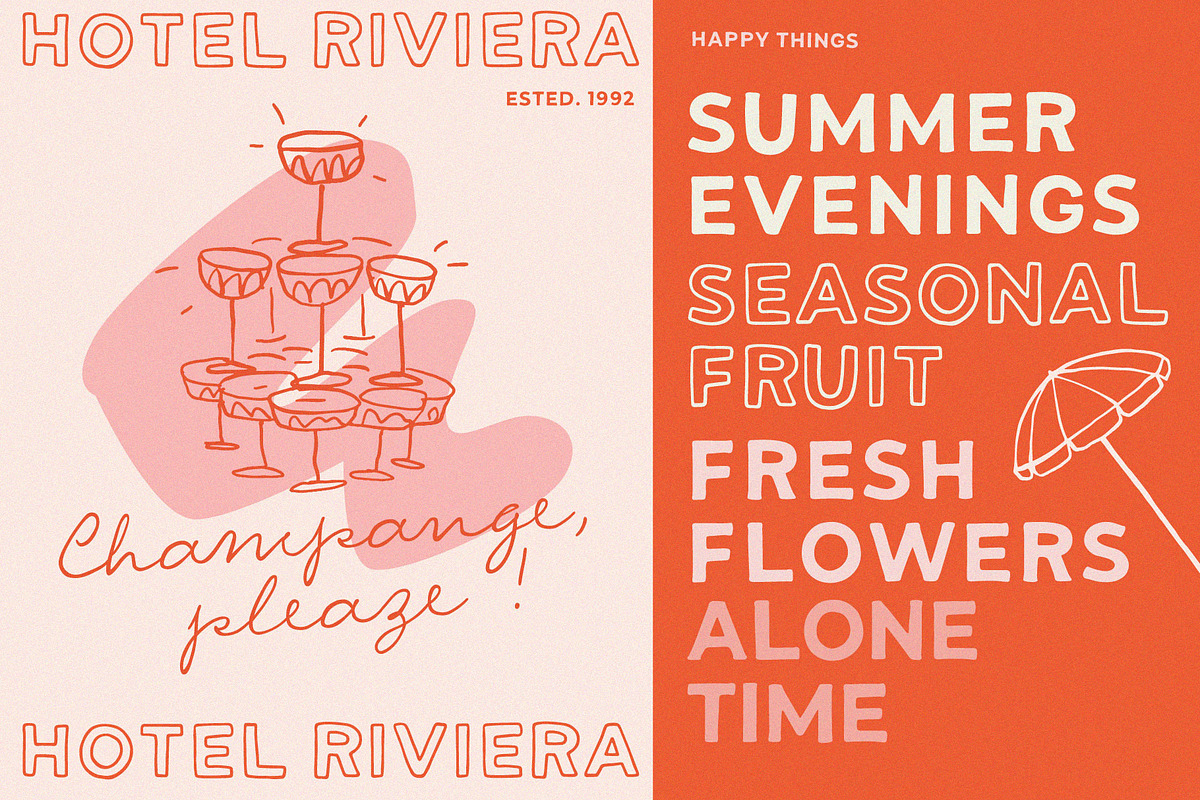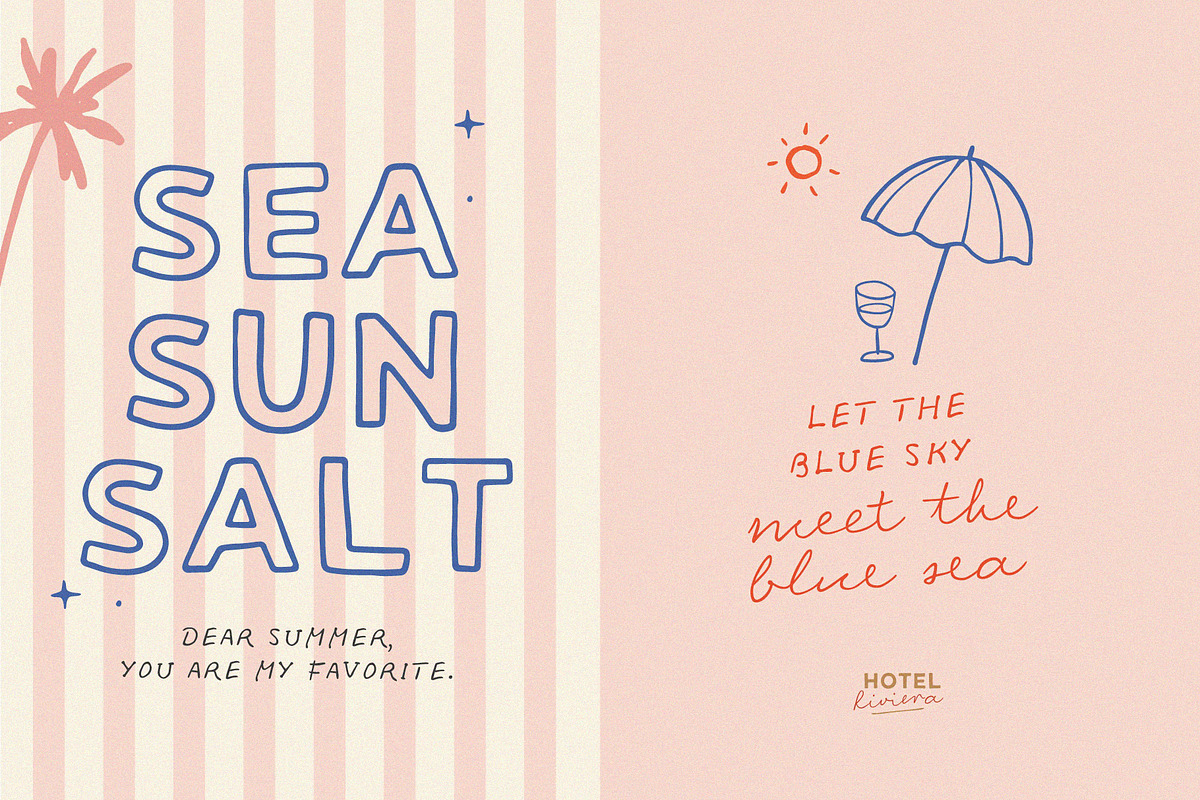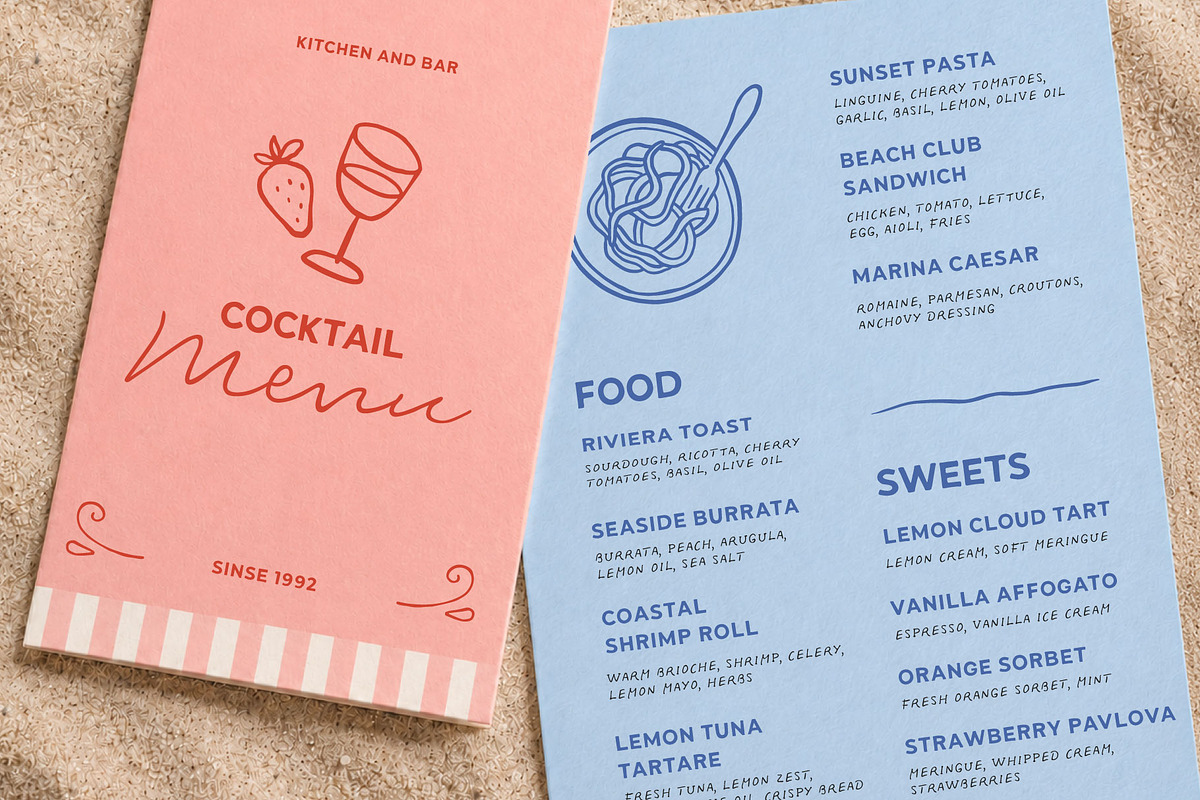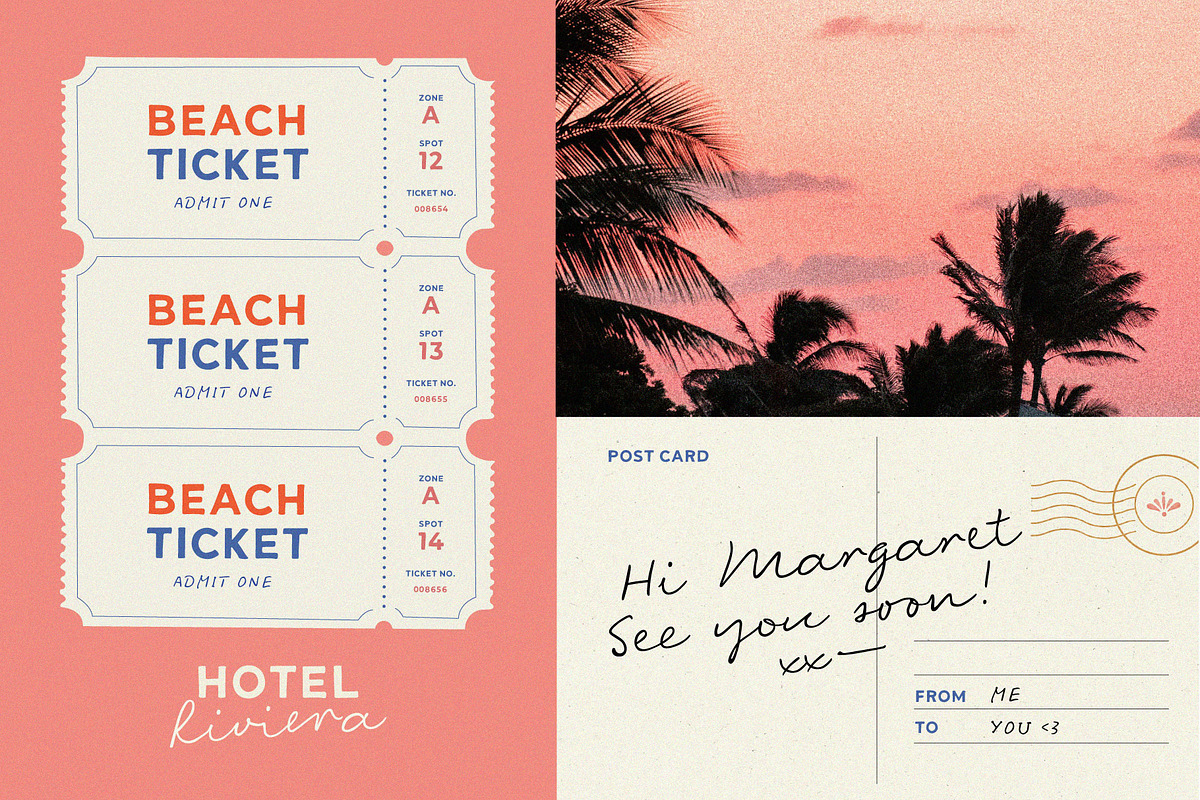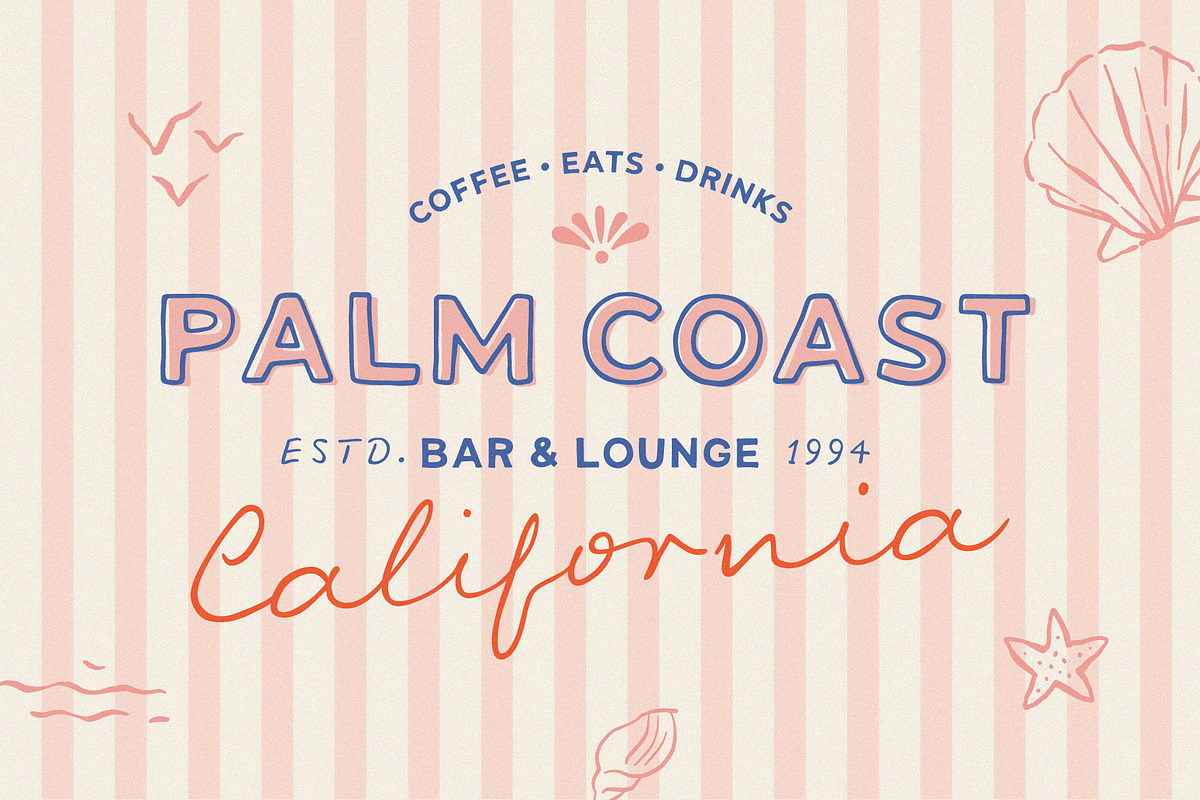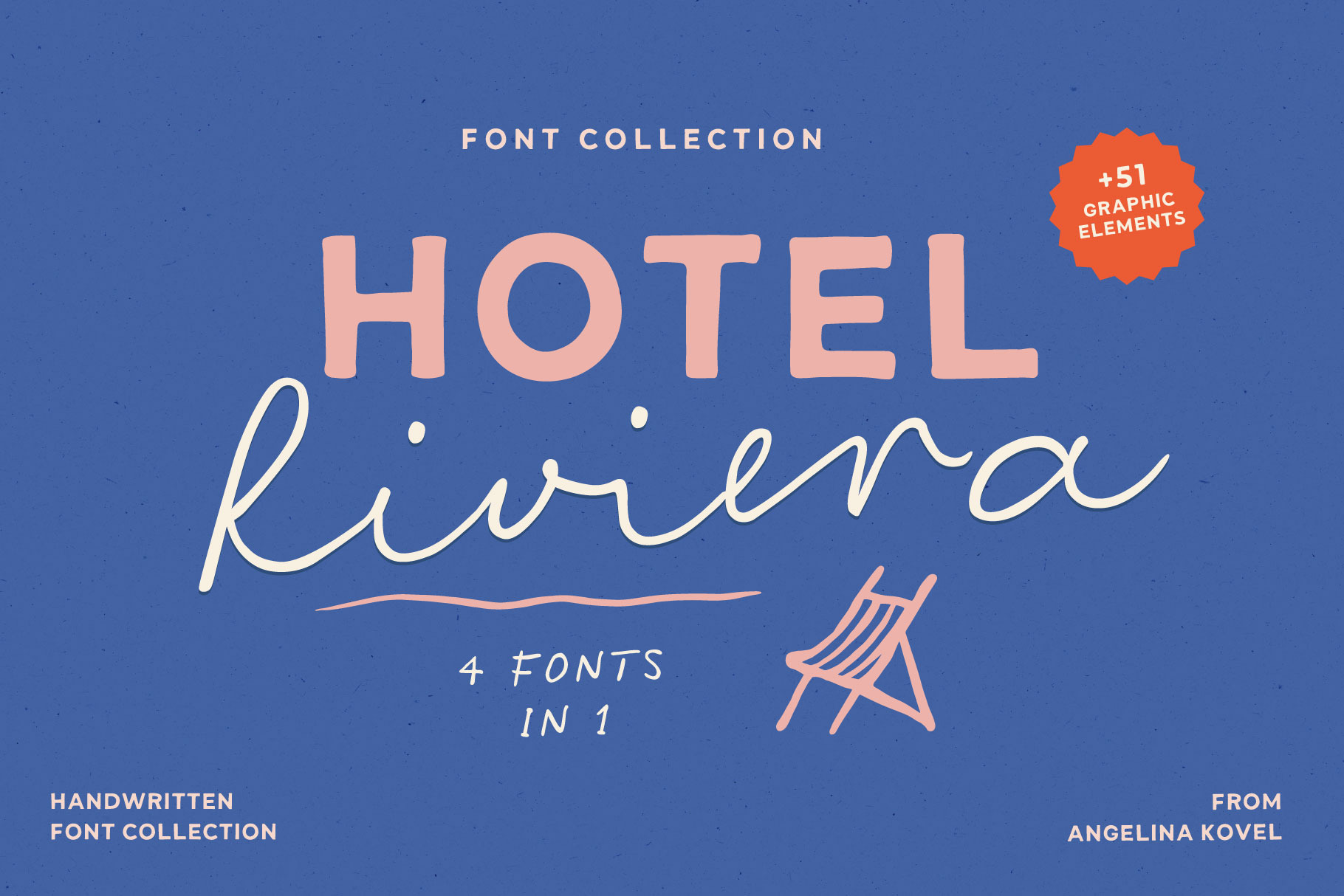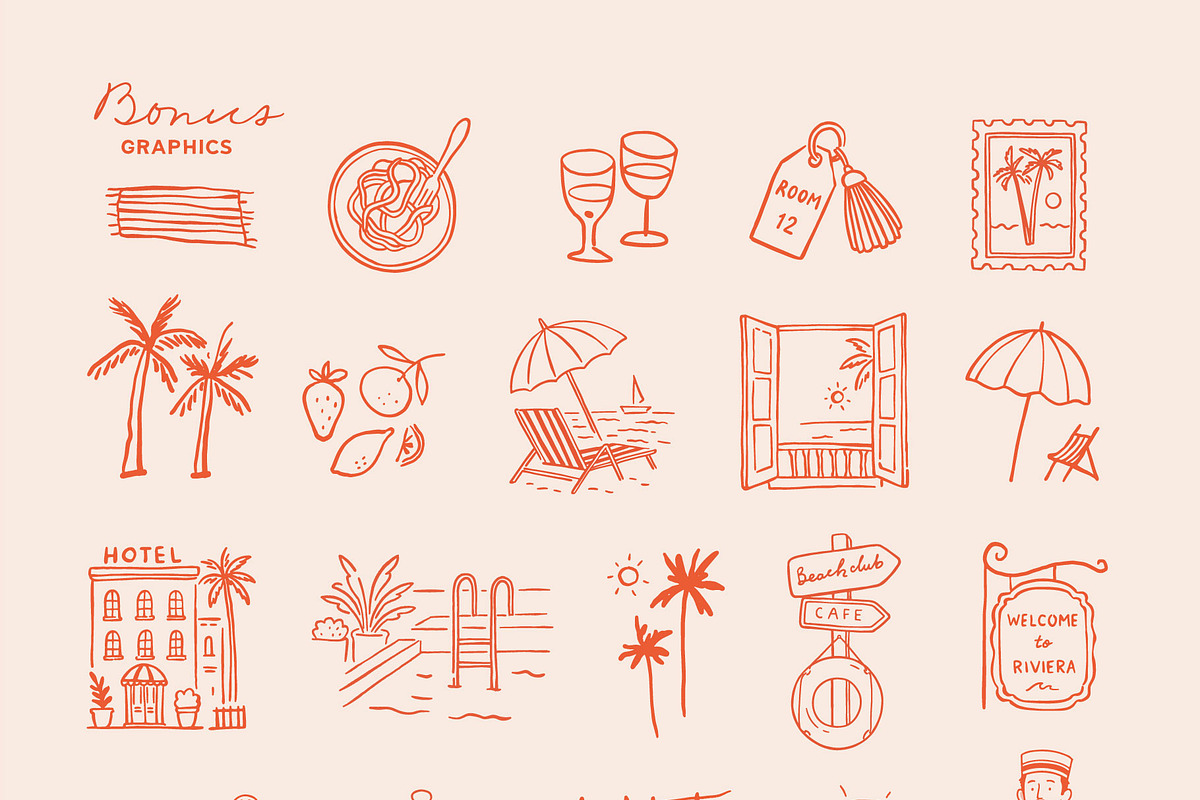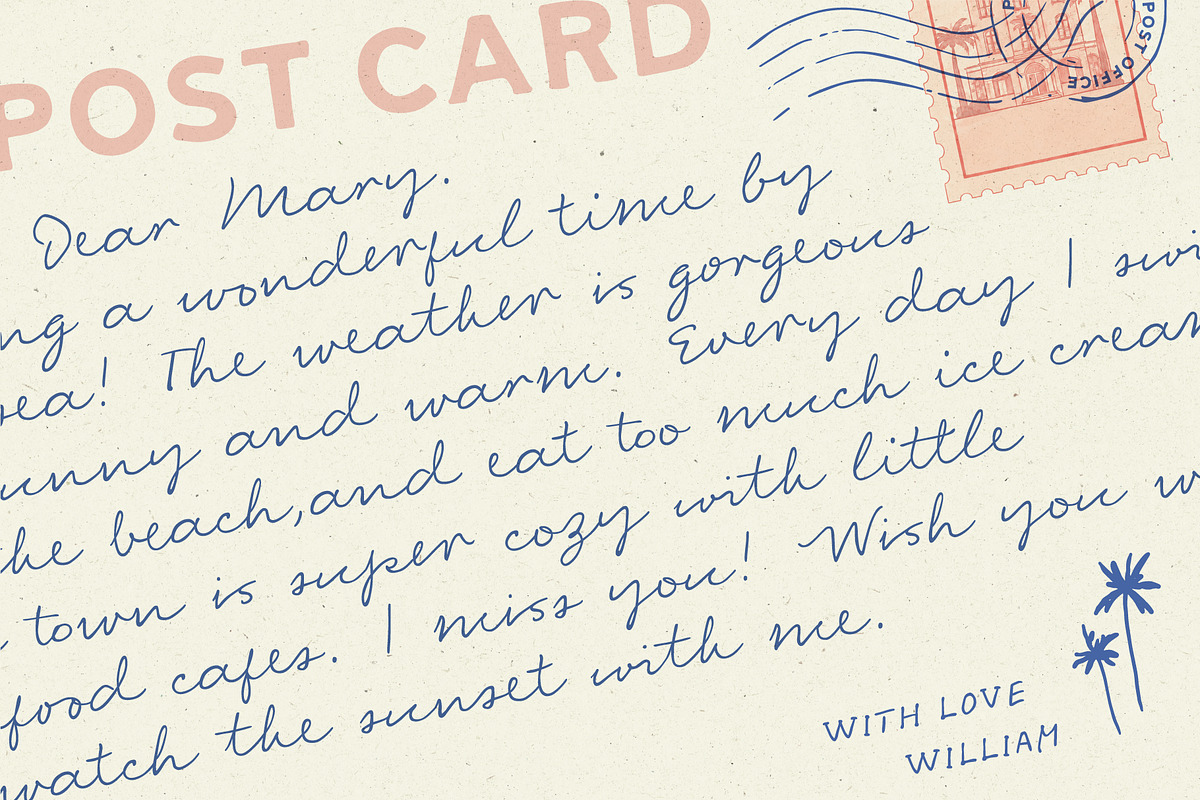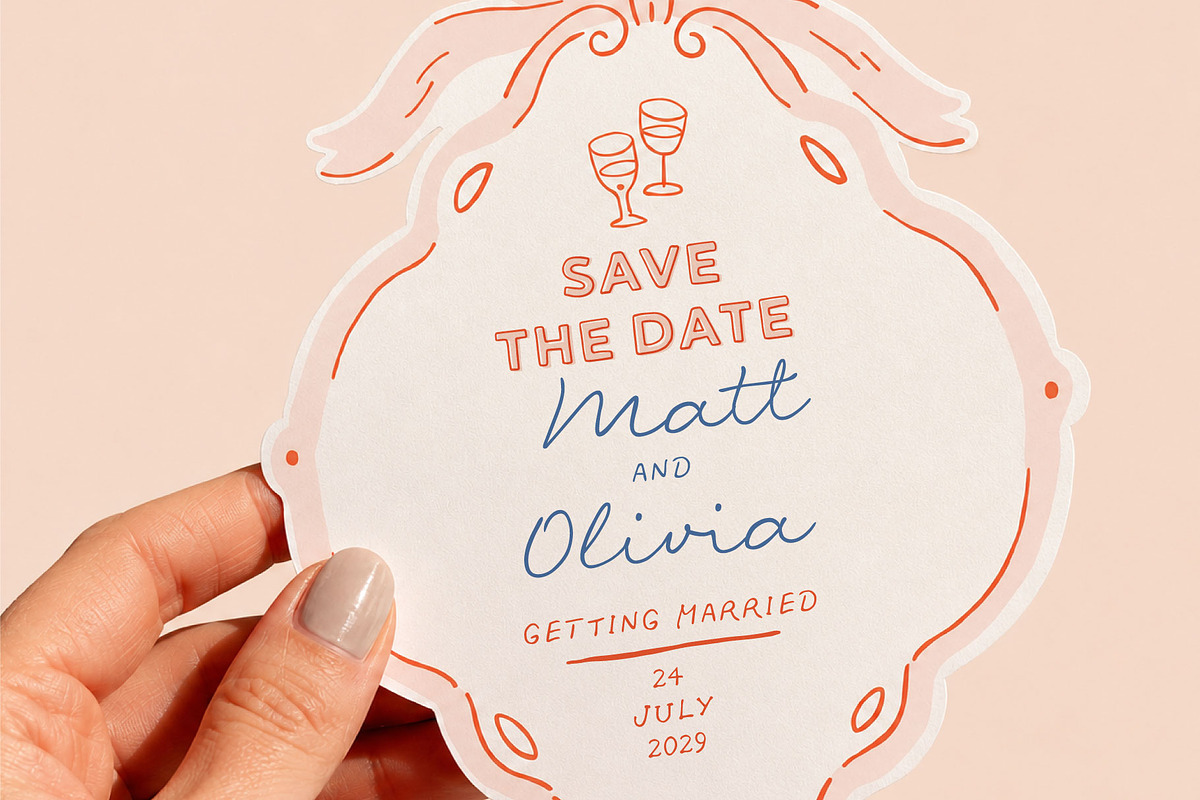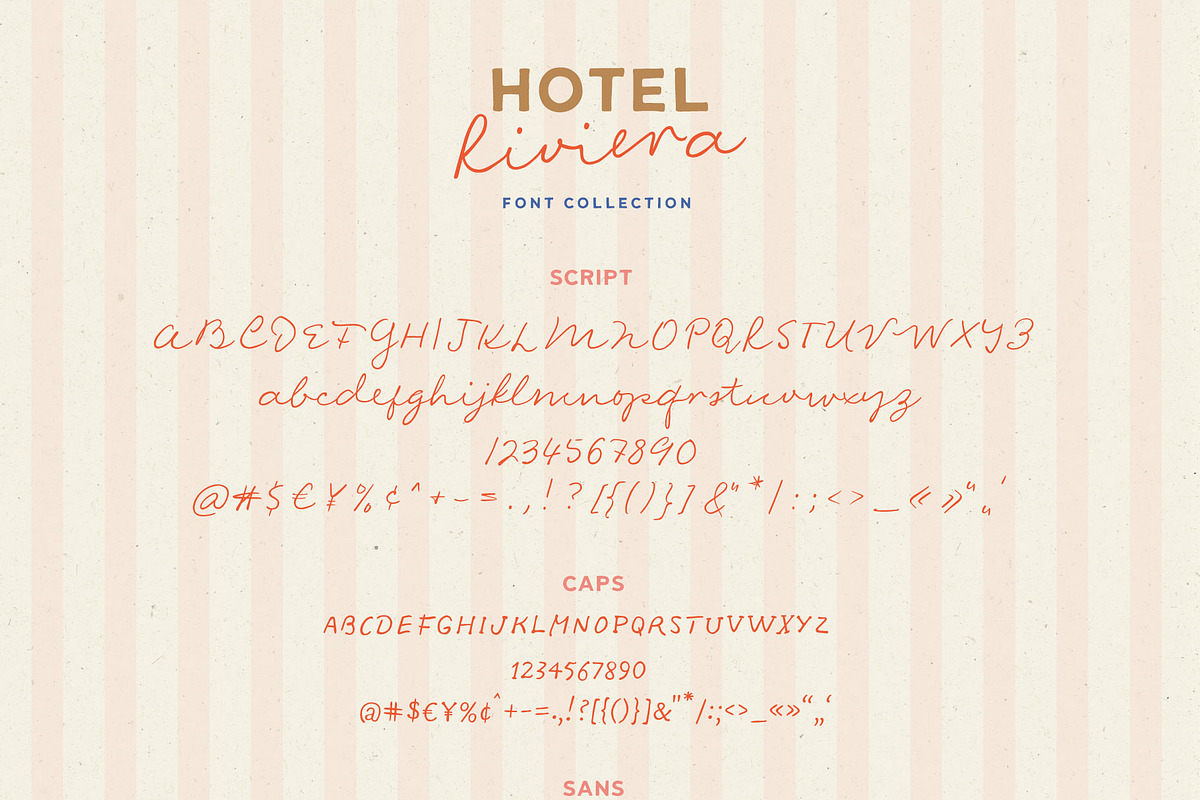
Hotel Riviera | Font collection
Hotel Riviera will be perfect for books, greeting cards, logos, posters or anything that requires a fun and happiness look!